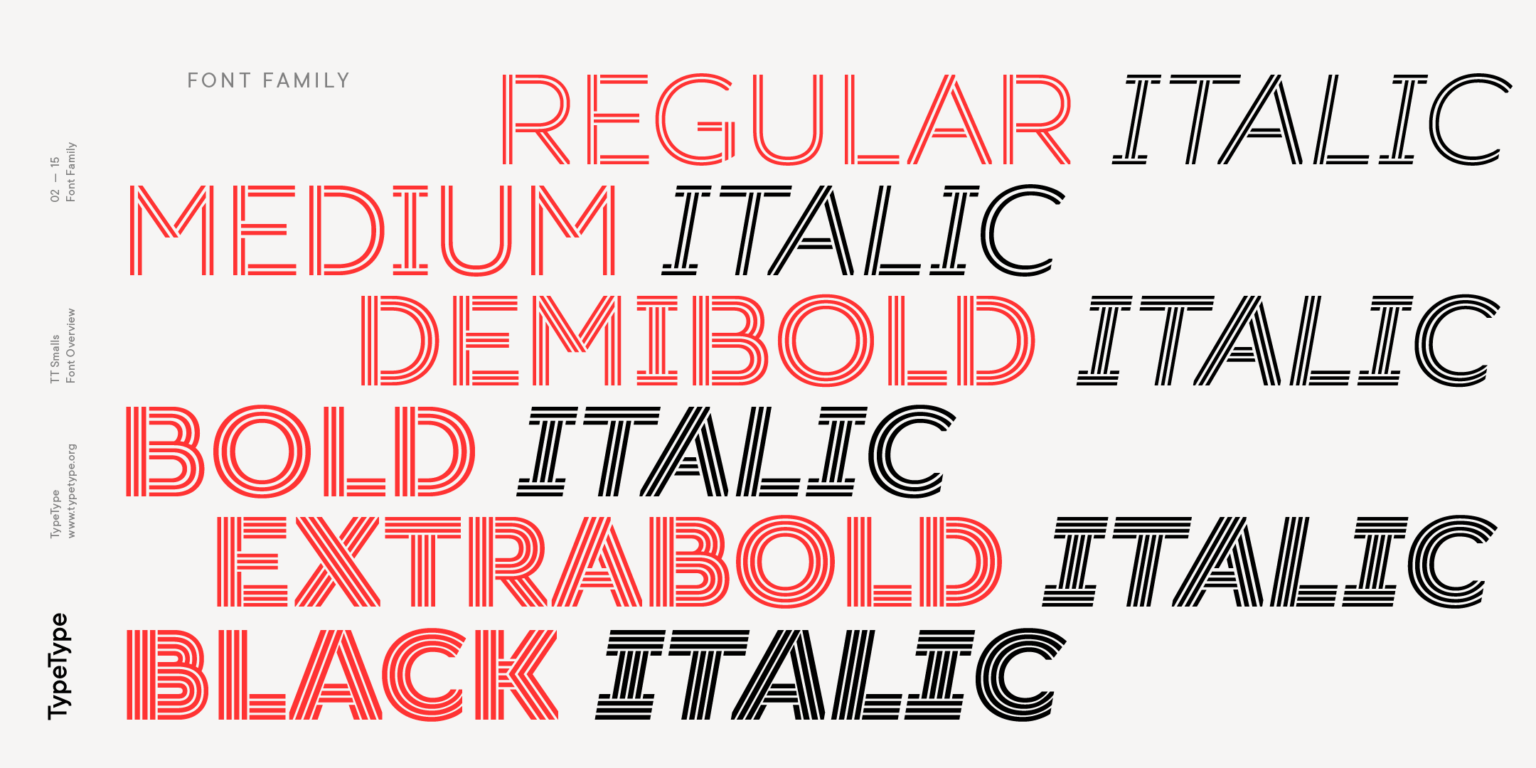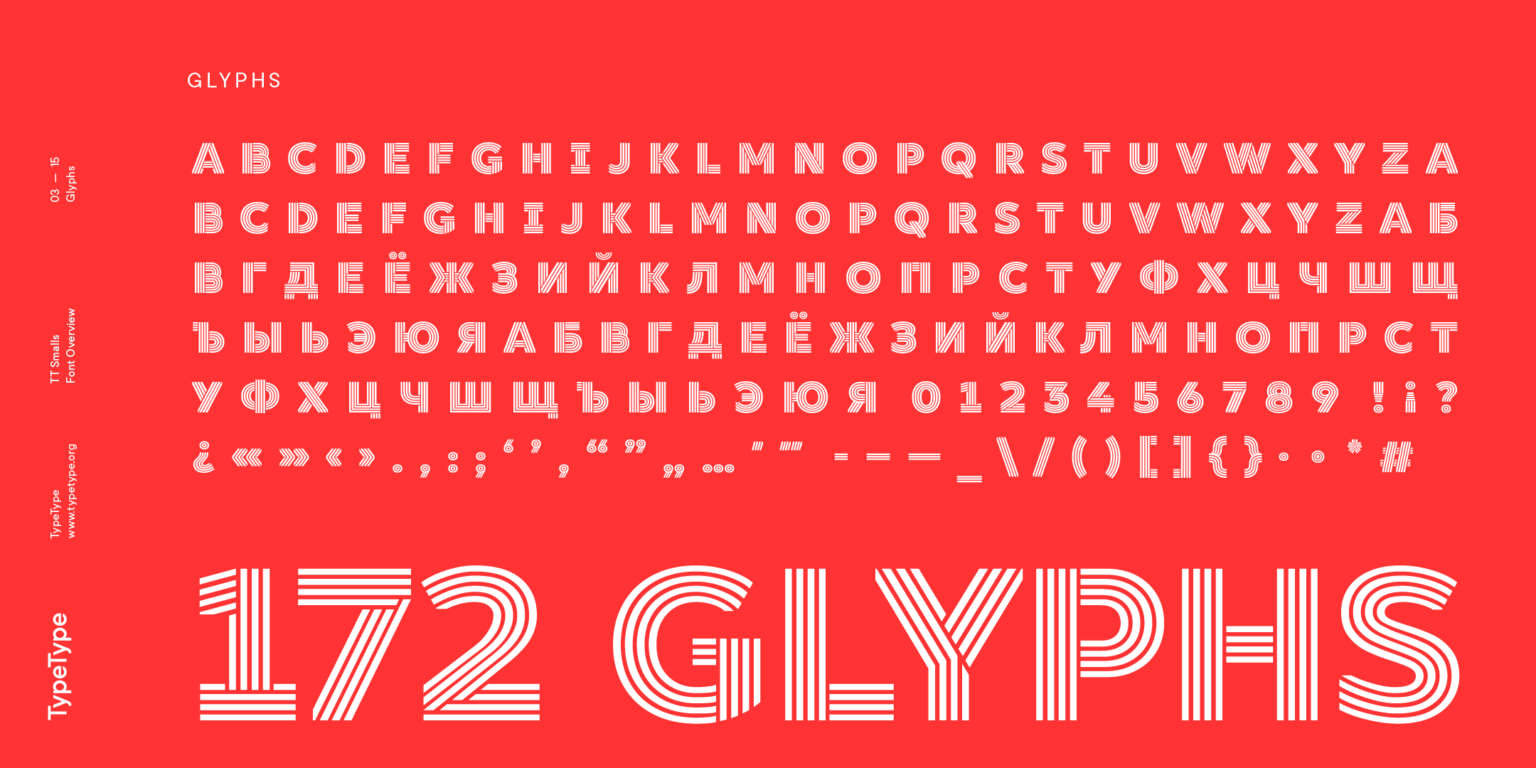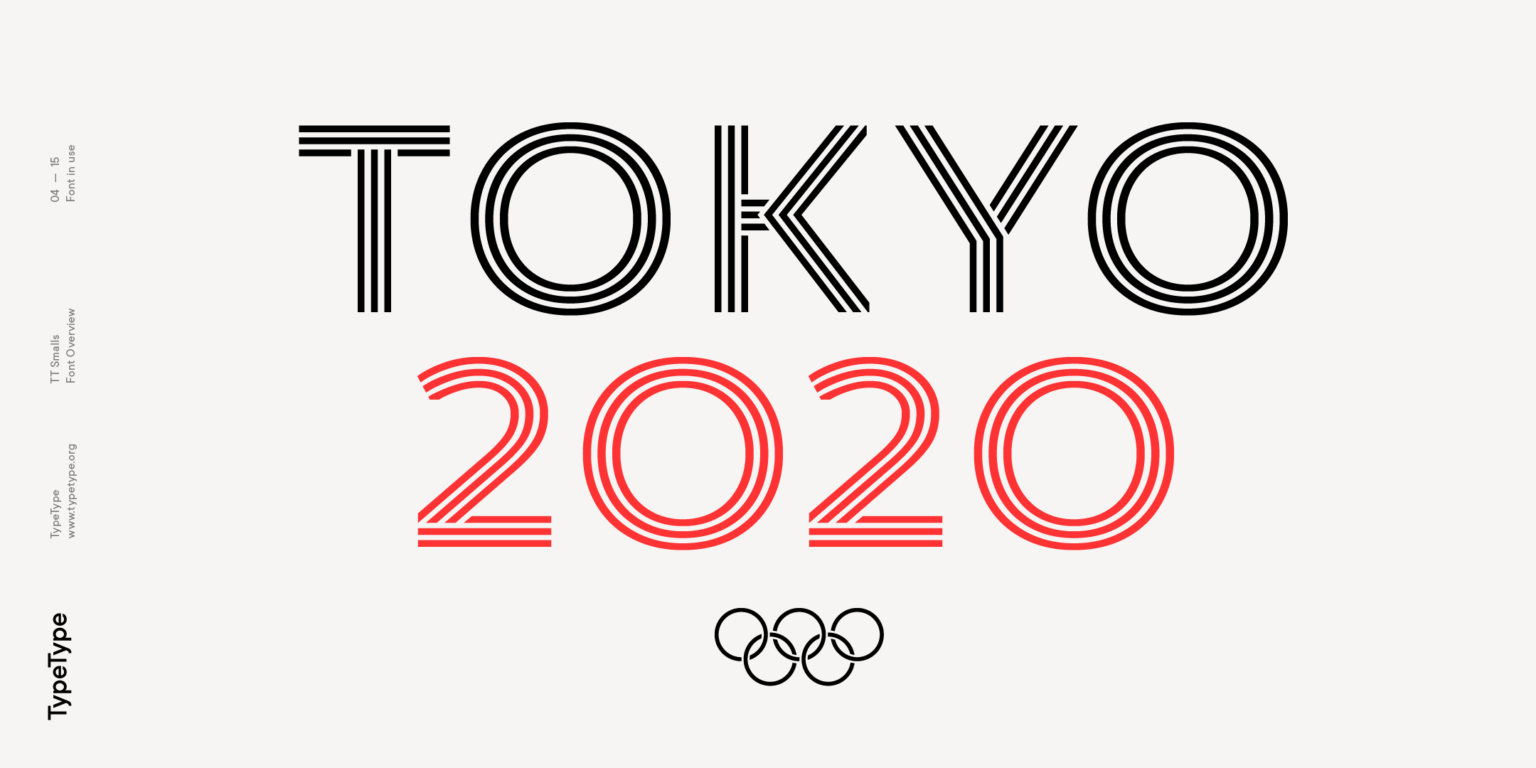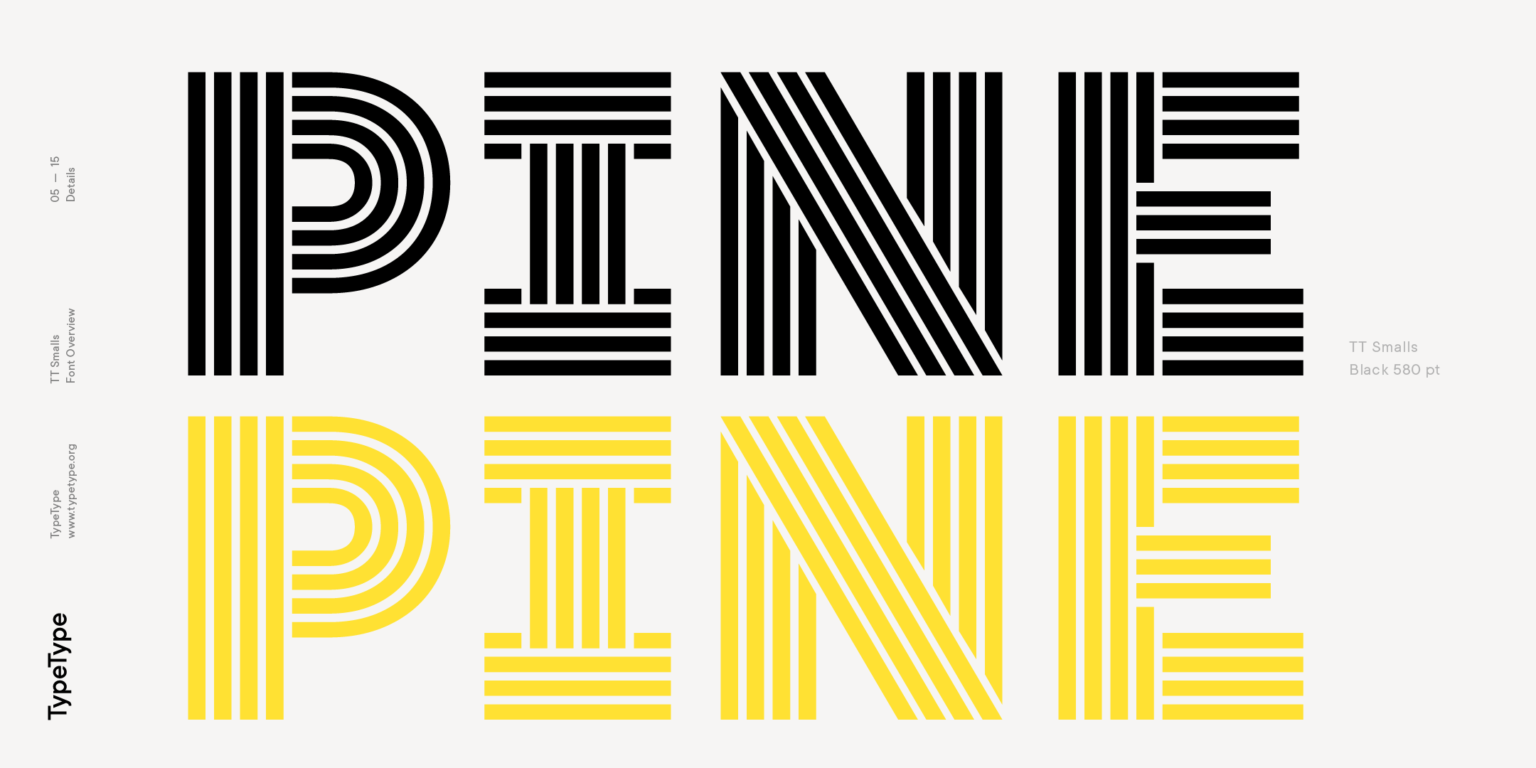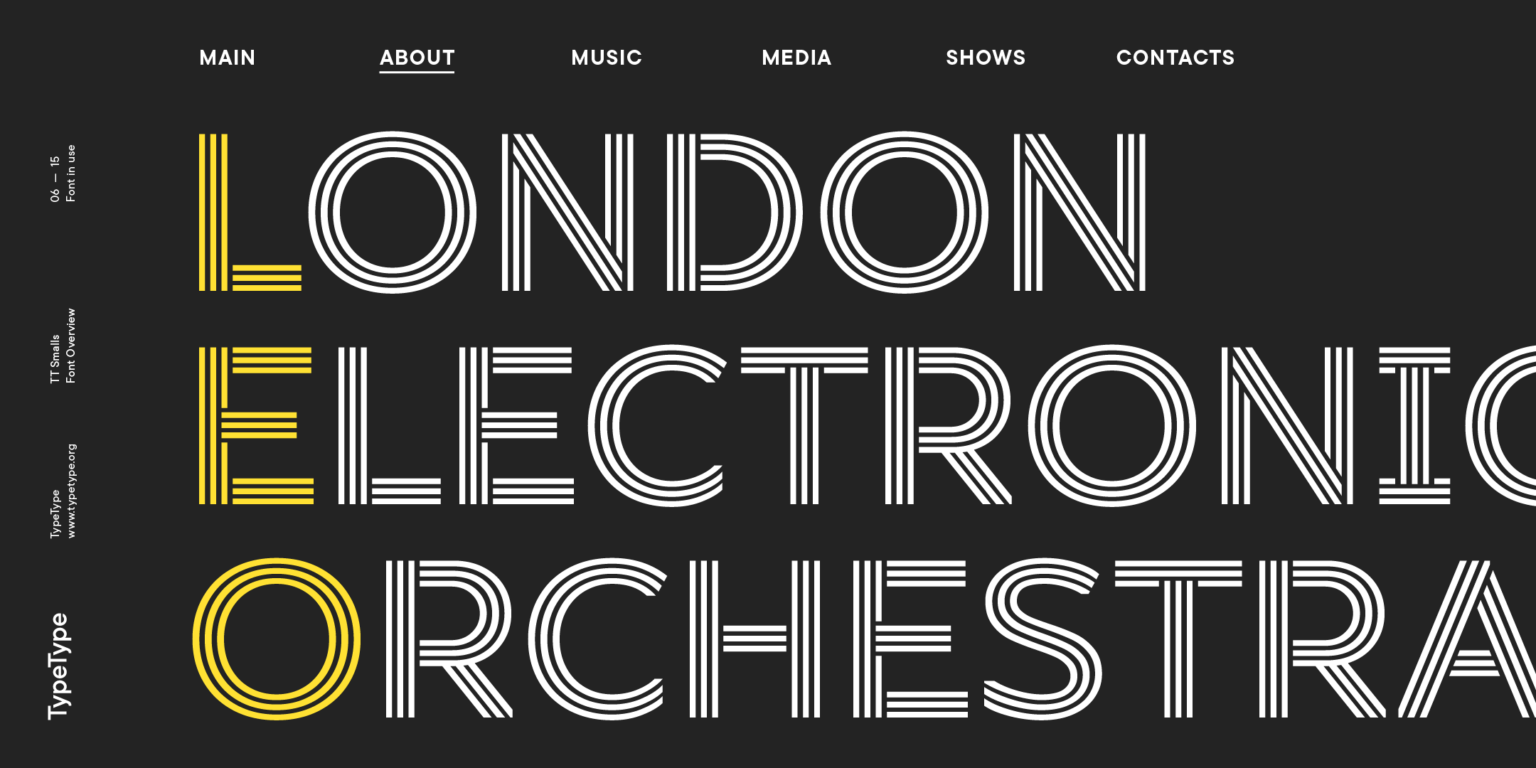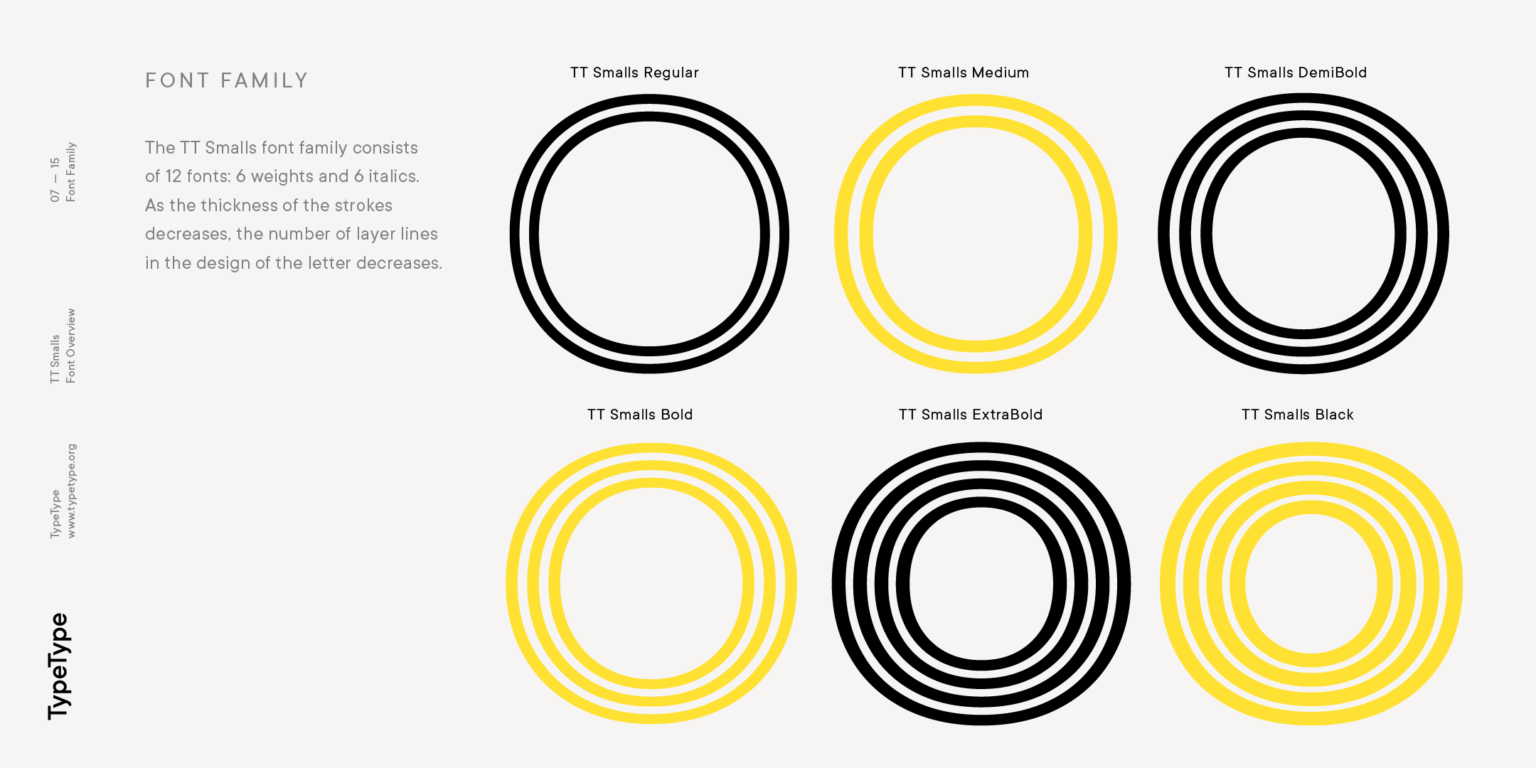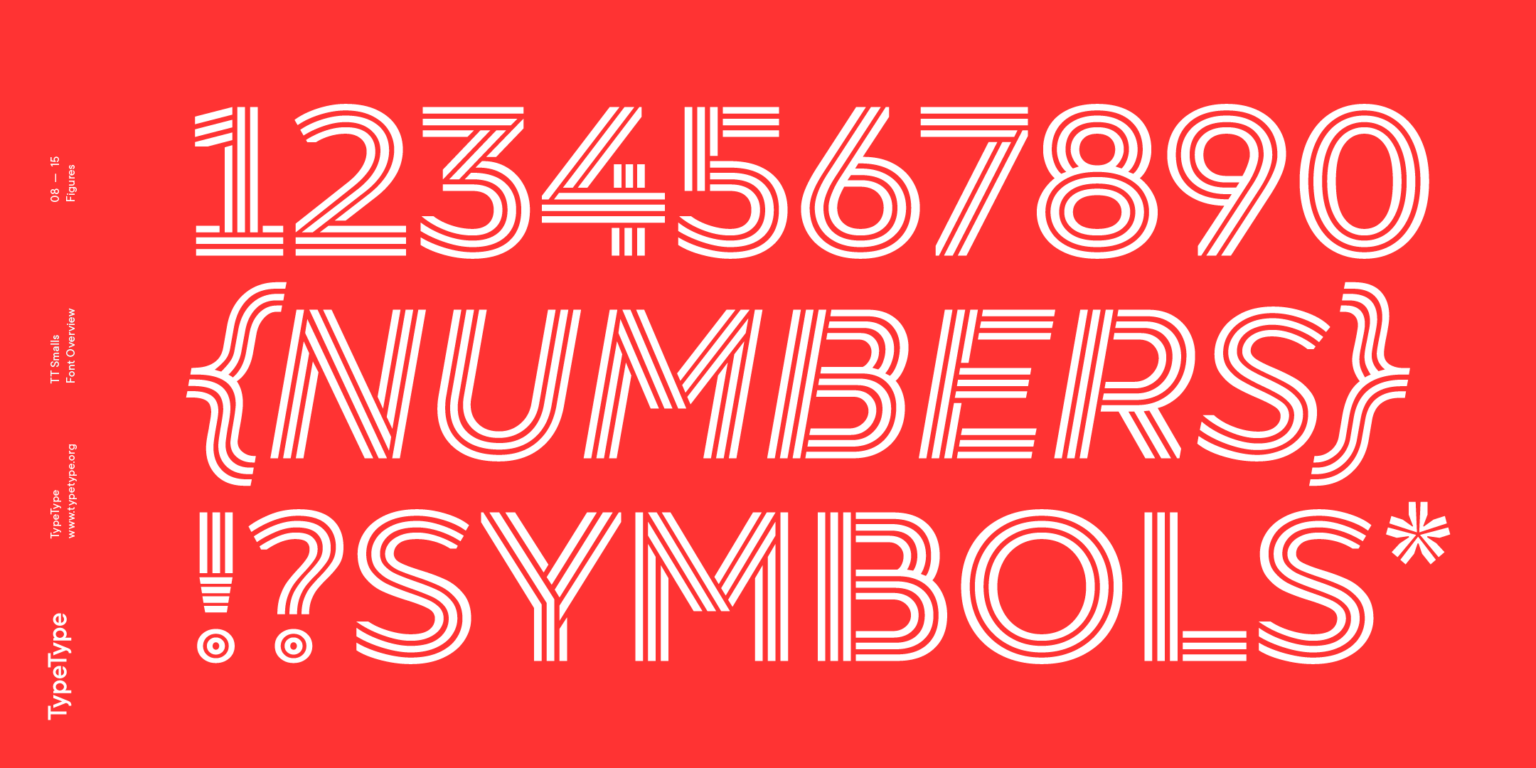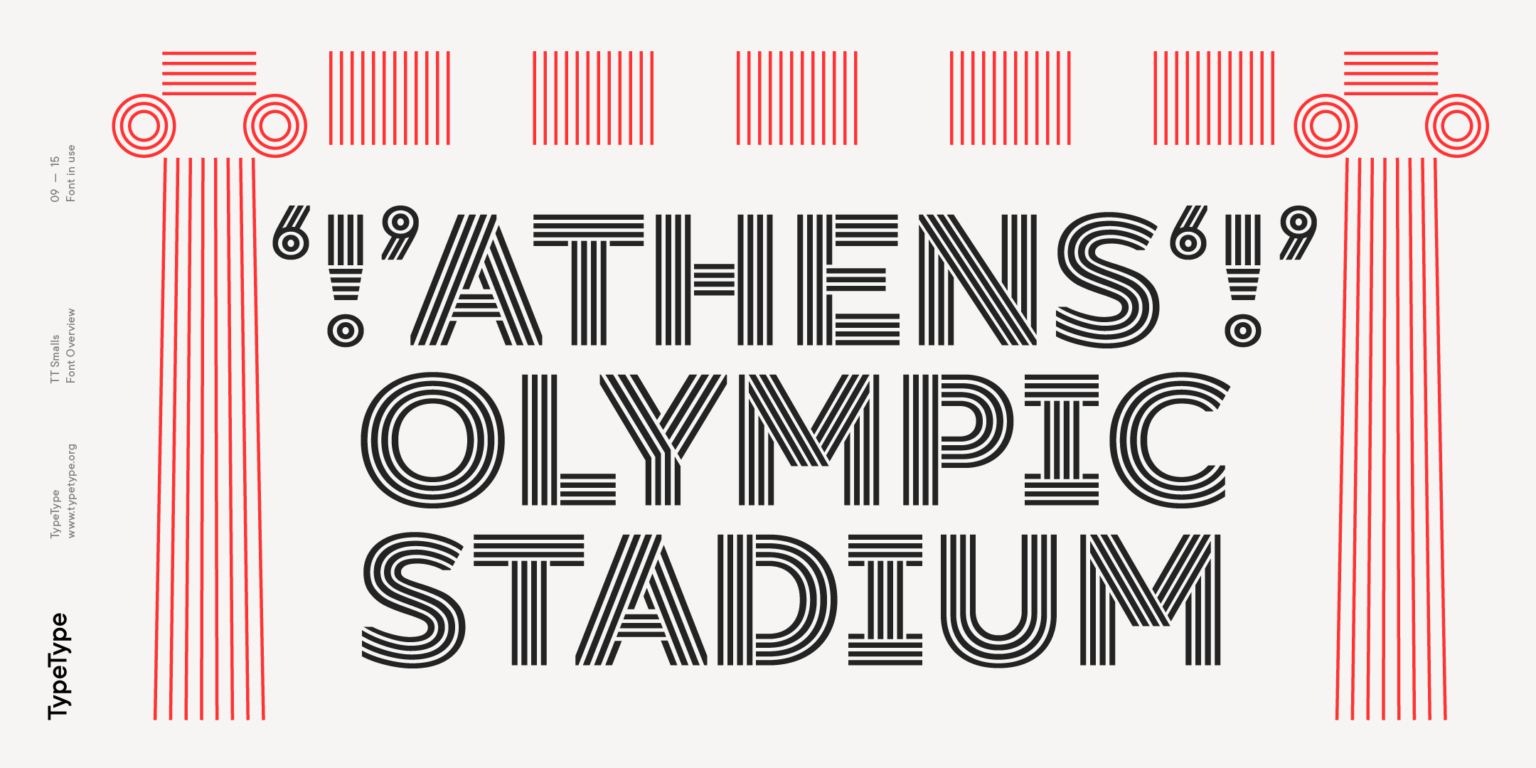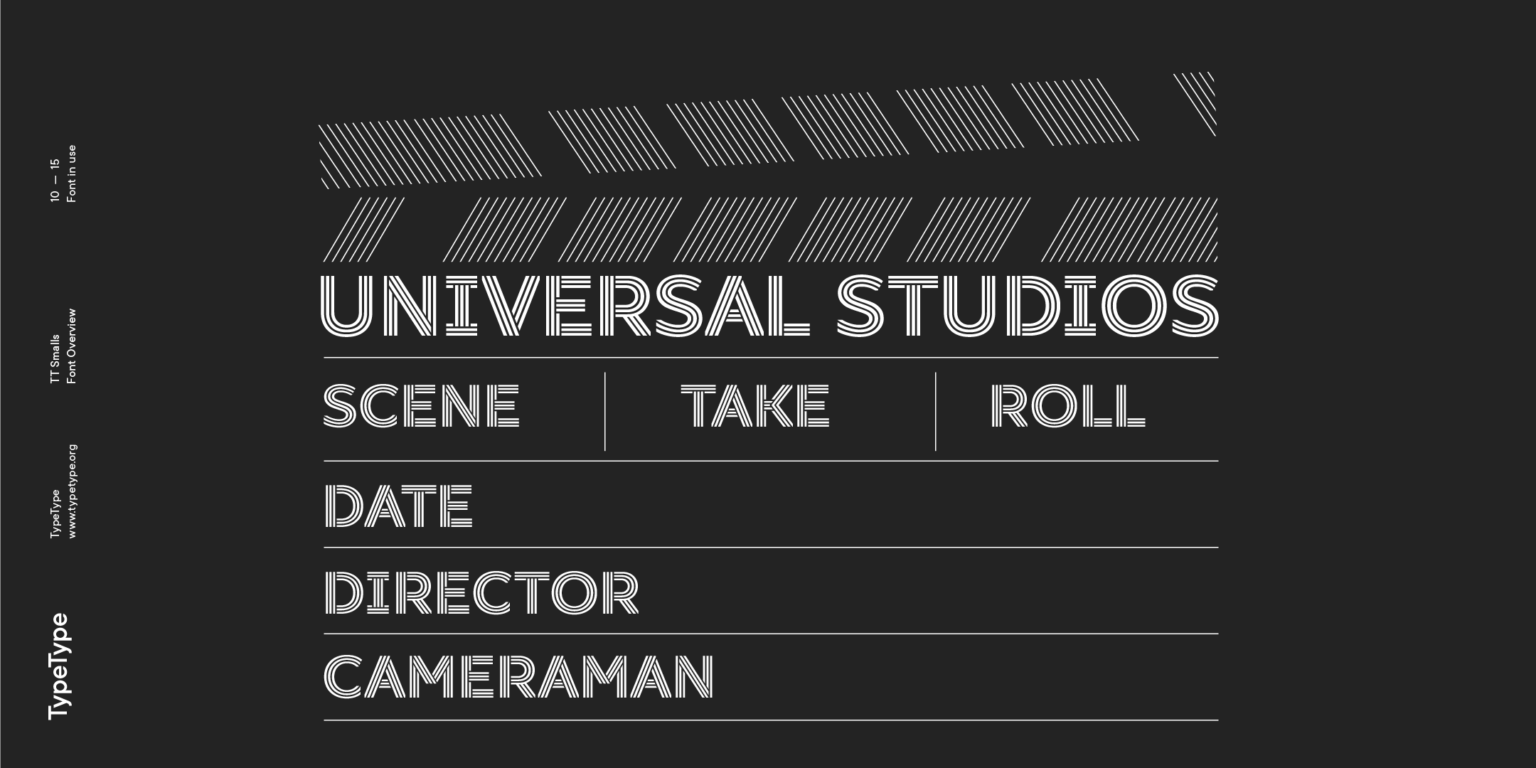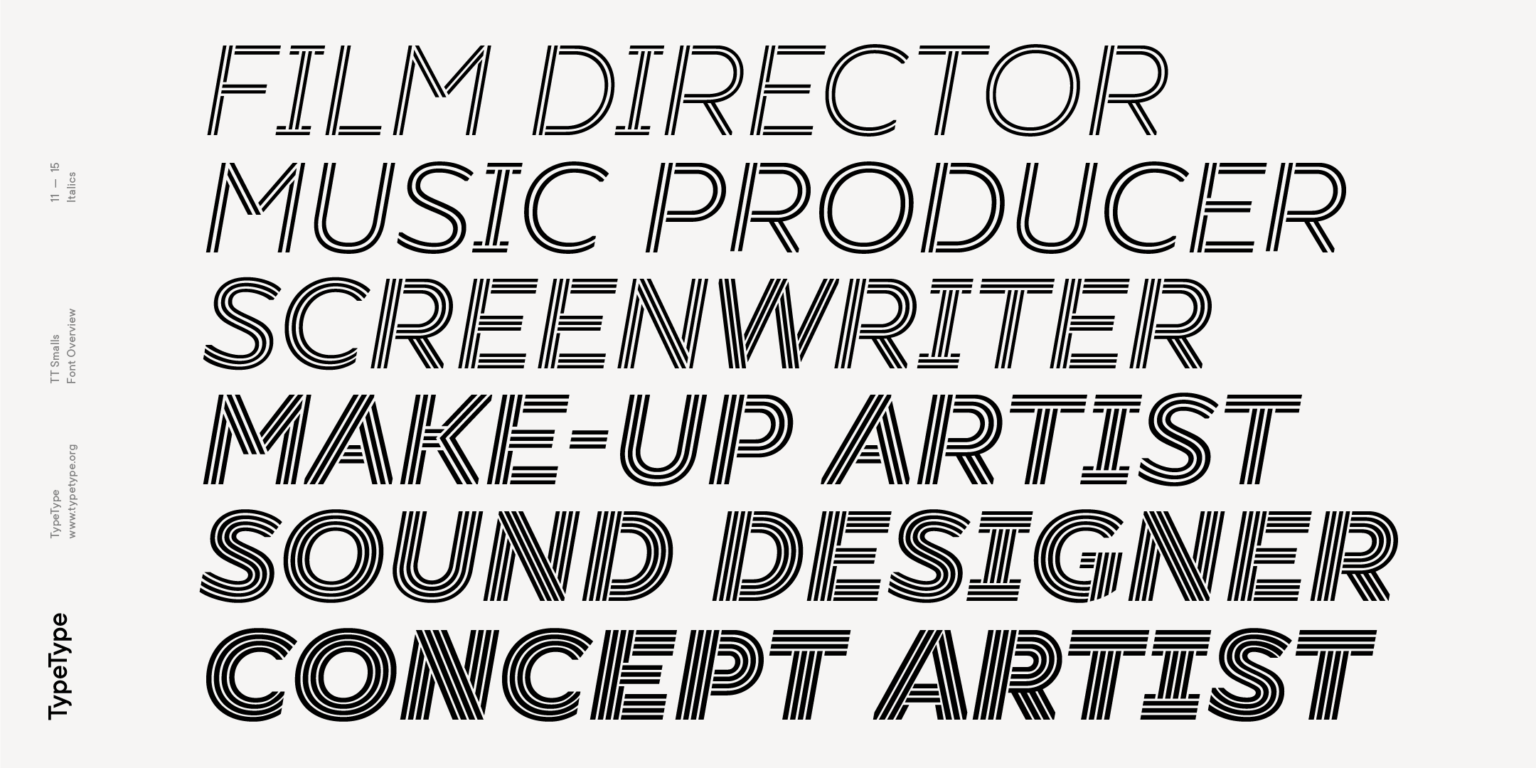
TT Smalls
TT Smalls is a decorative font for creating impact, featuring uppercase-only characters in the inline version.
Once TT Smalls was a neutral geometric sans serif, and the inline version was an alternative stylistic set. However, the TypeType collection of universal fonts is extensive, so we focused on creating a unique and expressive font and released an updated TT Smalls.
Font TT Smalls contains 12 styles: 6 upright and 6 inclined.
Stylish and easy to use
Forget everything you know about TT Smalls because we have re-released the font! TT Smalls is now a decorative font that makes it easy to attract attention. Use it to design expressive headings, in the packaging design or to highlight text on a site. Be sure that the text set in TT Smalls will arouse the interest of the audience.
About font family TT Smalls
Forget everything you know about TT Smalls because we have re-released the font!
TT Smalls is now a decorative font that makes it easy to attract attention. Use it to design expressive headings, in the packaging design or to highlight text on a site. Be sure that the text set in TT Smalls will arouse the interest of the audience.
Once TT Smalls was a neutral geometric sans serif, and the inline version was an alternative stylistic set. However, the TypeType collection of universal fonts is extensive, so we focused on creating a unique and expressive font and released an updated TT Smalls.
The font contains only uppercase characters in the inline version, and glyph designs are based on a geometric sans serif. With an increase or decrease in weight, the number of strokes in the font goes up or down, respectively.
Stylish and easy to use, the TT Smalls font can complete a collection of eye-catching decorative typefaces.
Font TT Smalls contains 12 styles: 6 upright and 6 inclined. The character set of the font is 172 glyphs. It has basic Latin and Cyrillic and the main punctuation marks. The standard OpenType feature calt has been added to the font.